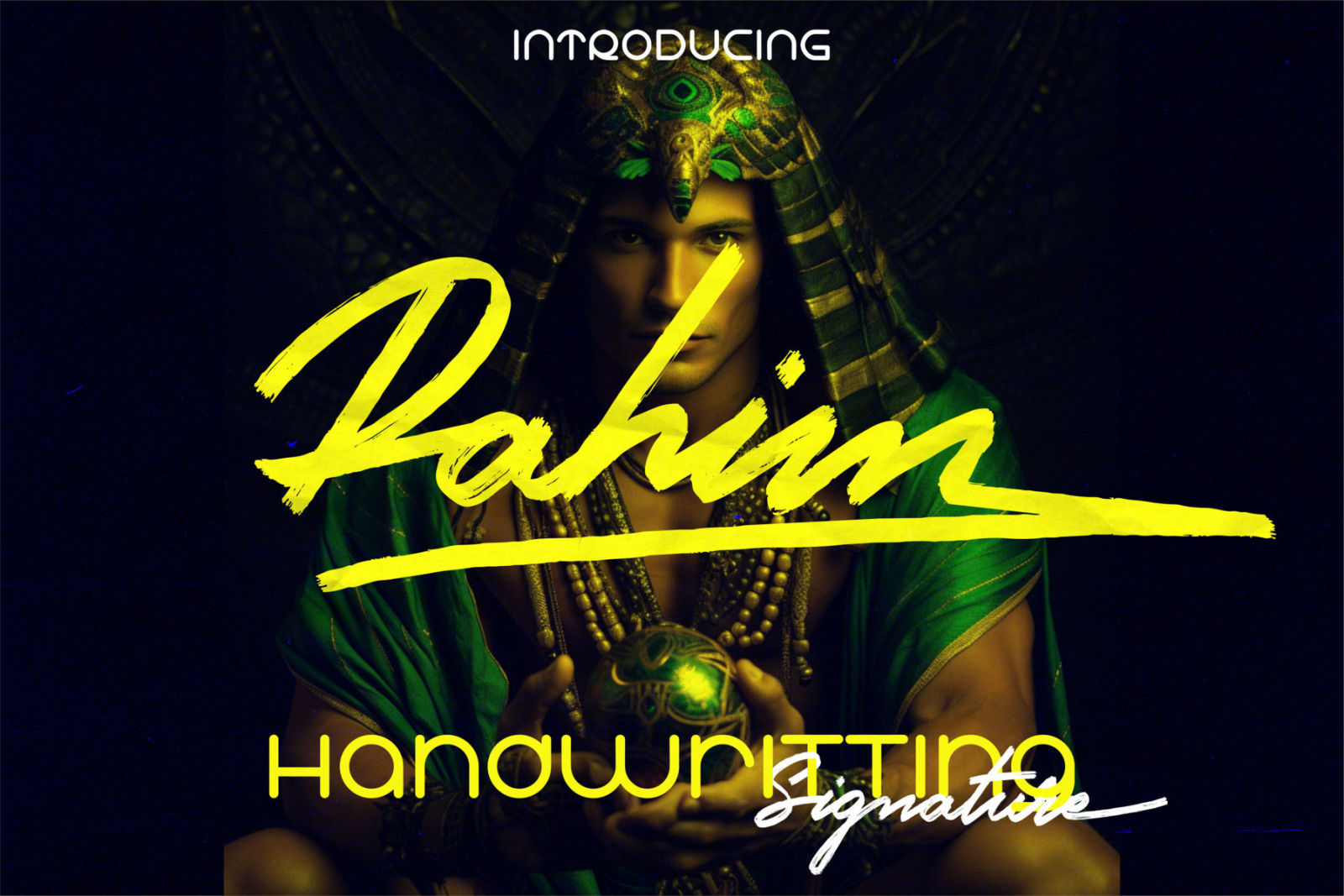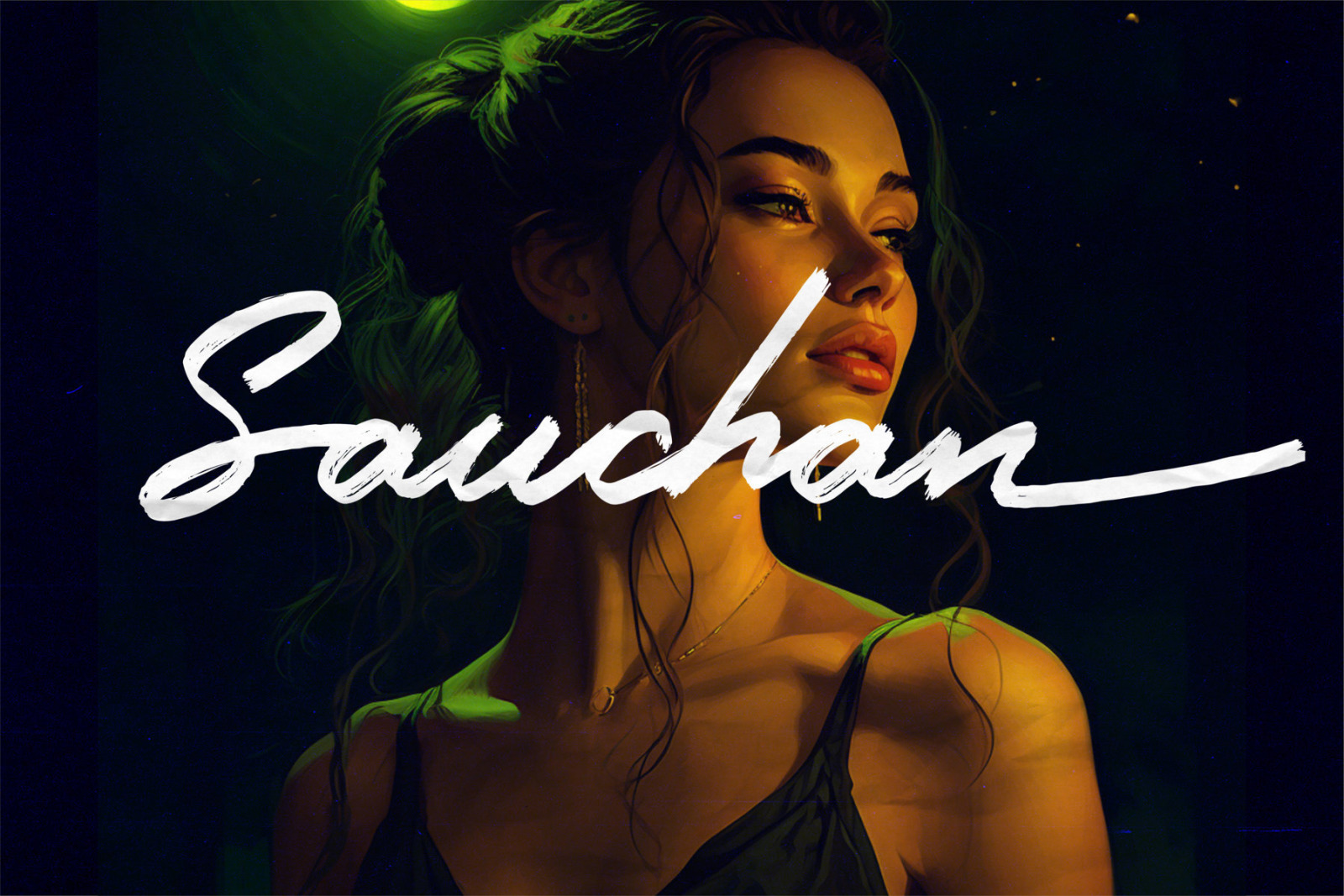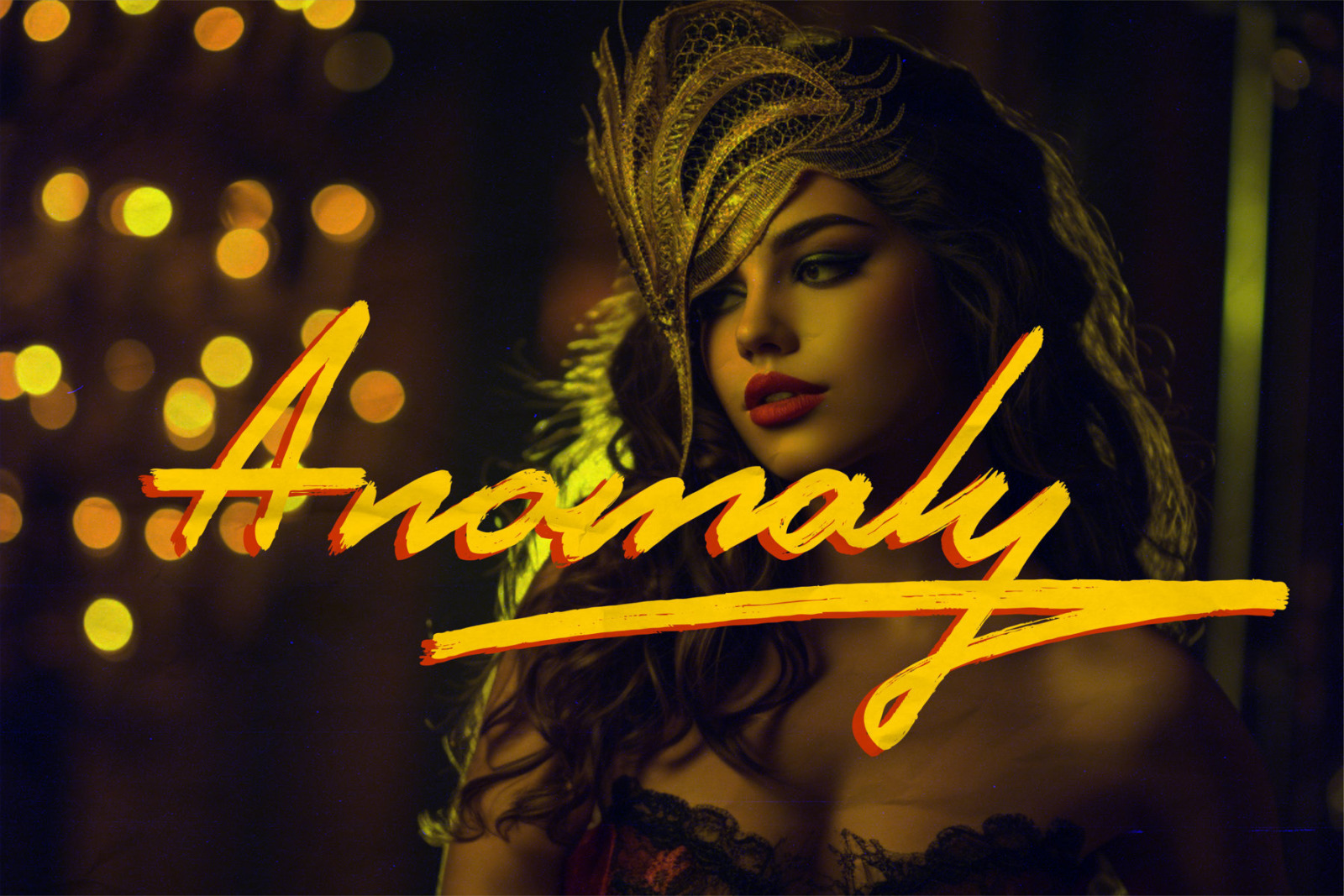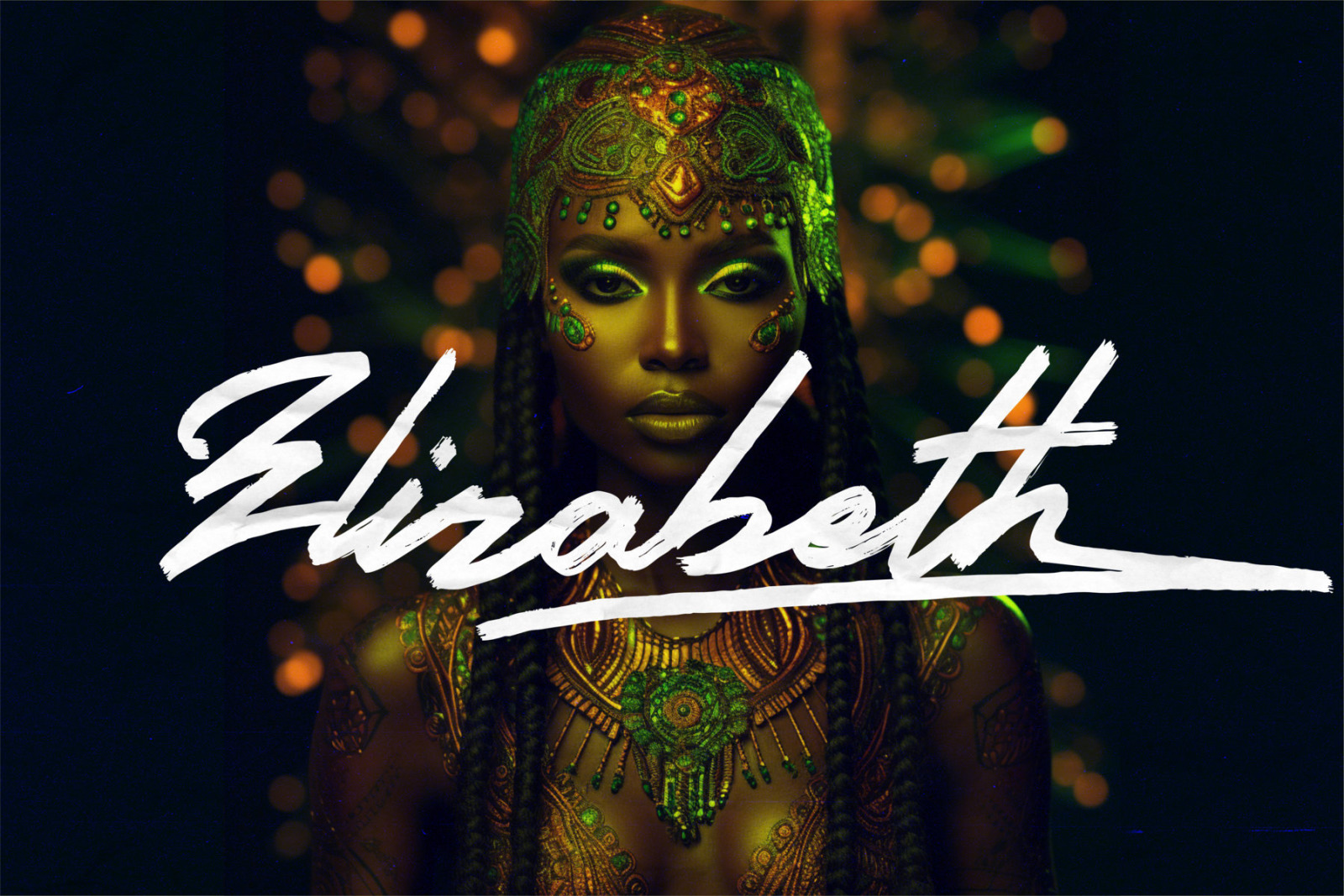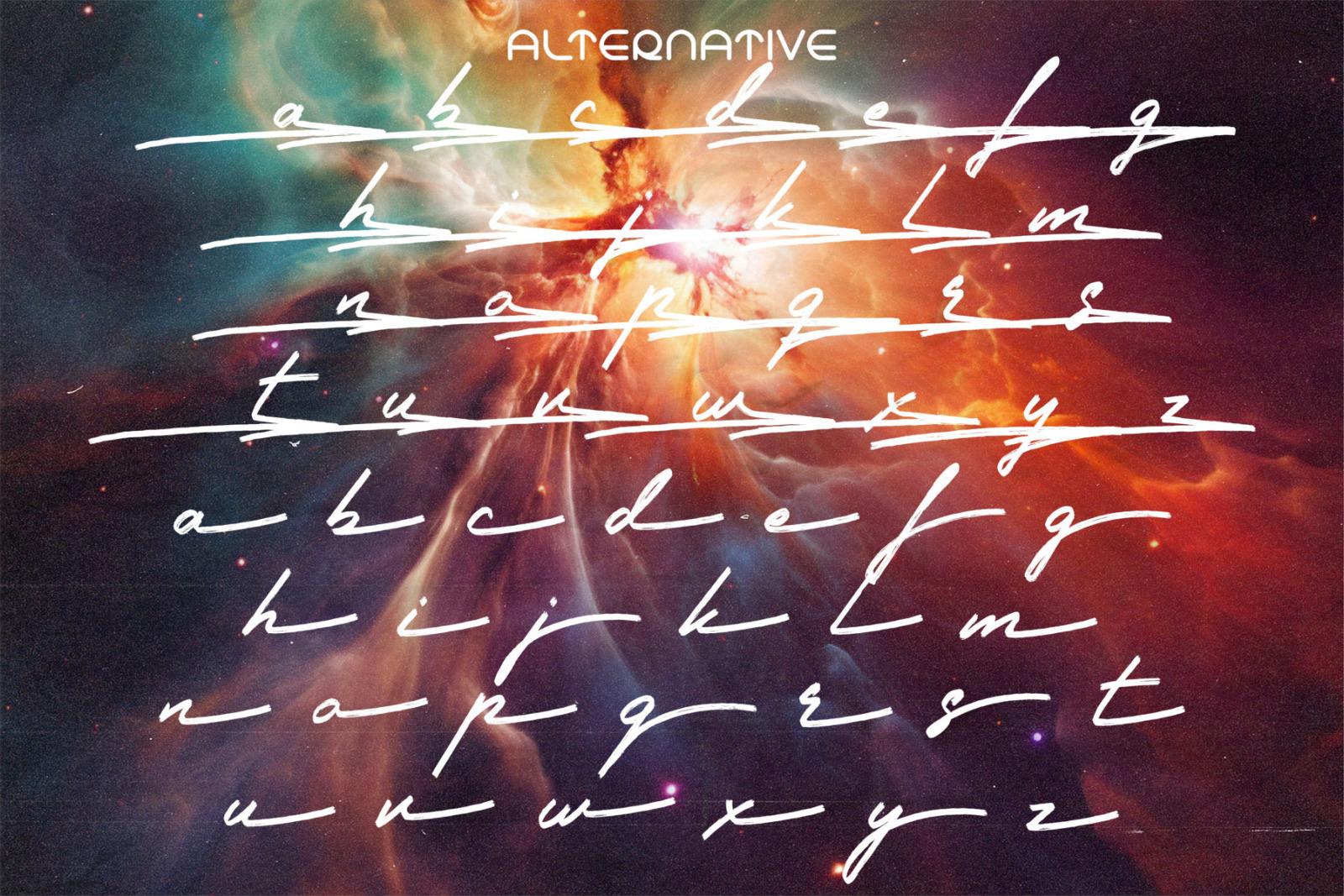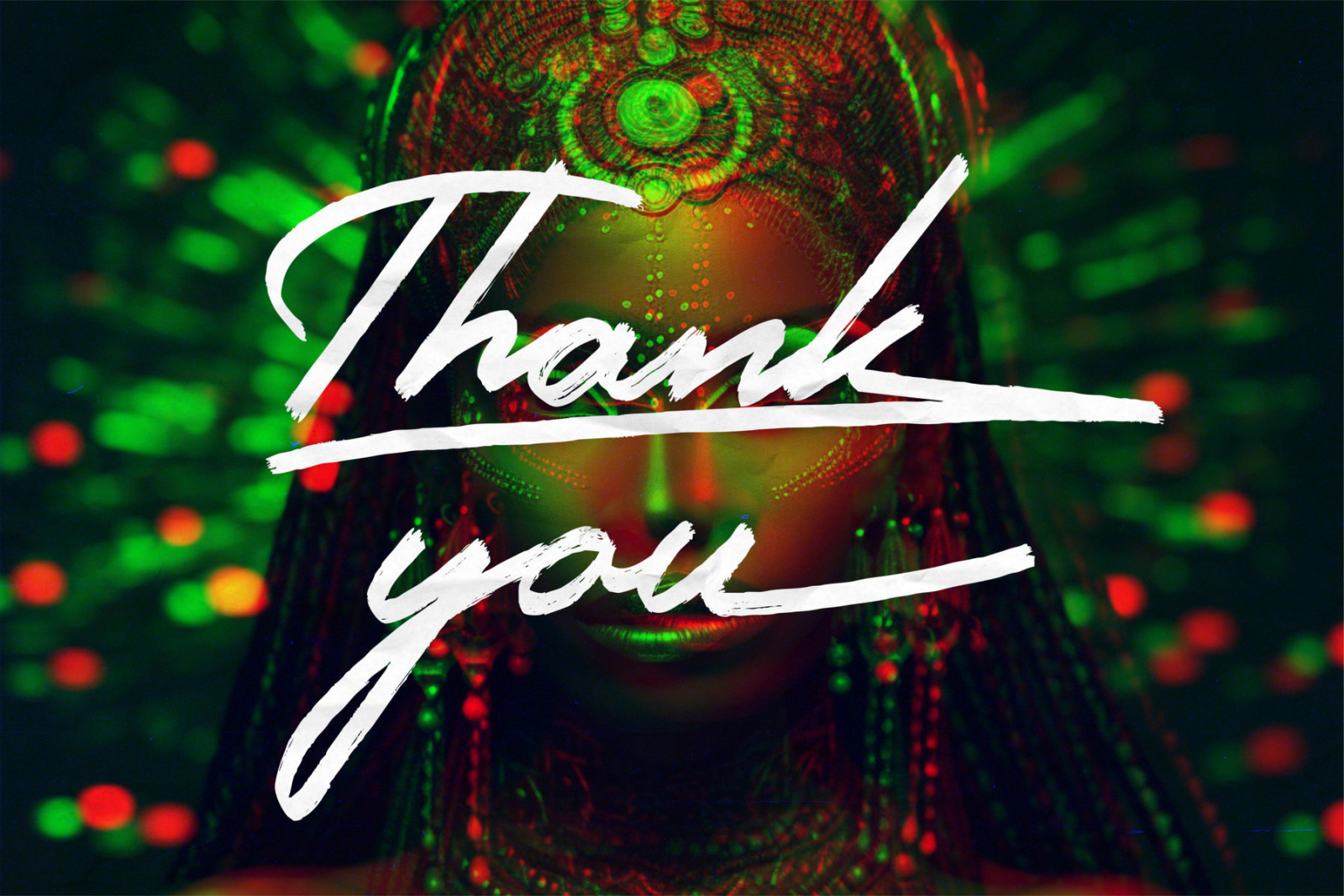
Rahim Signature Font
A Rahim Signature Font is a typeface that mimics the appearance of cursive or handwriting styles. These fonts are characterized by their flowing and connected letterforms, which evoke a sense of elegance and personal touch. Script fonts can range from formal and calligraphic to casual and whimsical, making them versatile choices for various design projects, especially when you want to add a human, handwritten feel to your text. Whether you're designing invitations, greeting cards, or any project that benefits from a touch of personality, Rahim Signature Fonts can infuse a sense of warmth and authenticity into your typography.